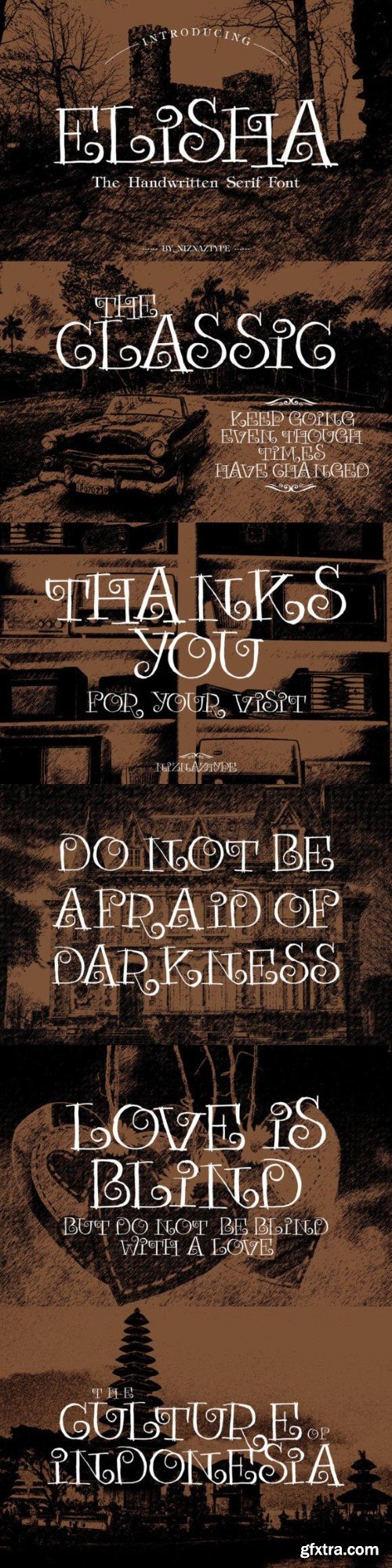
Elisha Font
Elisha is an elegant and bold handwritten serif font. Fall in love with its incredibly versatile style and use it to create gorgeous wedding invitations, beautiful stationary art, eye-catching social media posts, and much more!